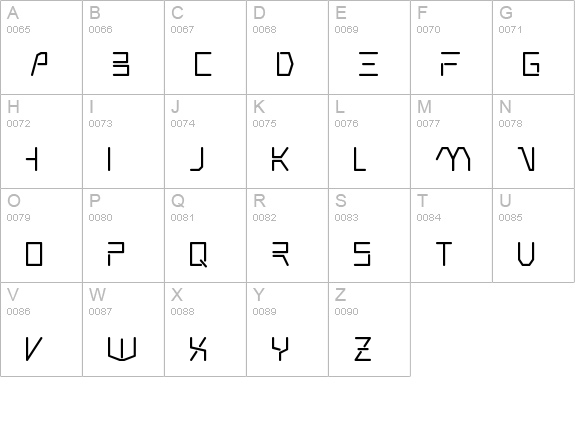
Metromedo Font Details
Metromedo font combines sleek modernity with a touch of urban sophistication, making it the perfect choice for projects that require a contemporary and stylish aesthetic. Its clean lines and geometric shapes convey a sense of professionalism and clarity, while its unique design elements add a hint of creativity and flair. This versatile typeface is ideal for a wide range of design applications, from branding and advertising to editorial and web design. Whether you're looking to create eye-catching headlines or elegant body text, Metromedo offers the flexibility and versatility to suit your needs. And the best part? Metromedo is available for free download at FontsMarket.com, giving you easy access to this high-quality font for all your design projects. Don't miss out on this fantastic opportunity to add a touch of sophistication to your work with Metromedo font.